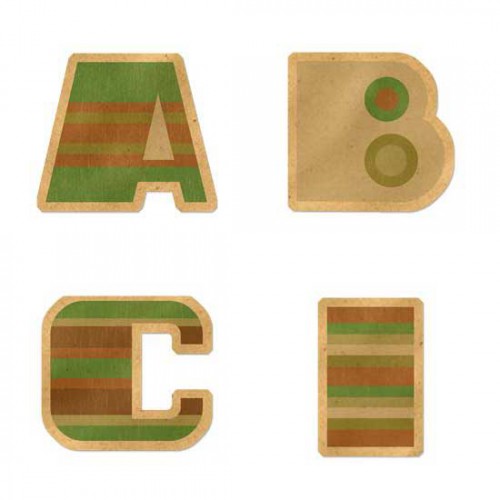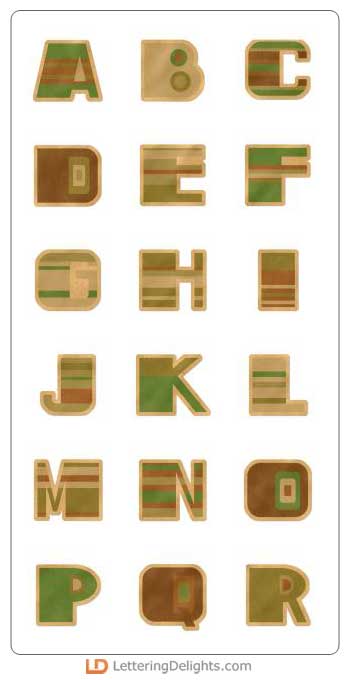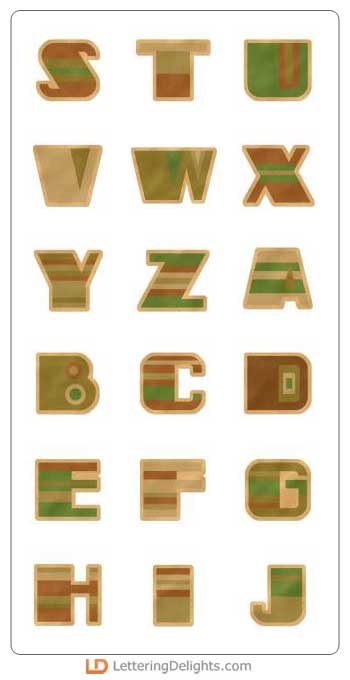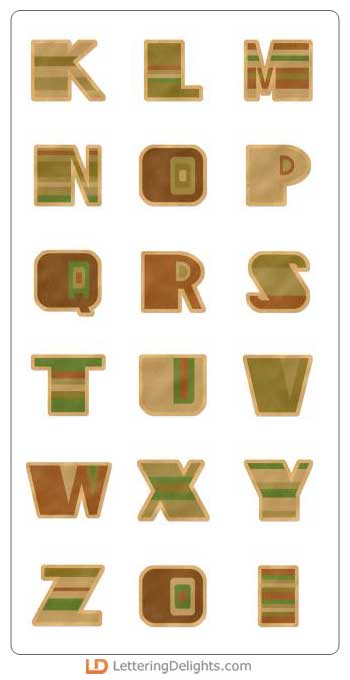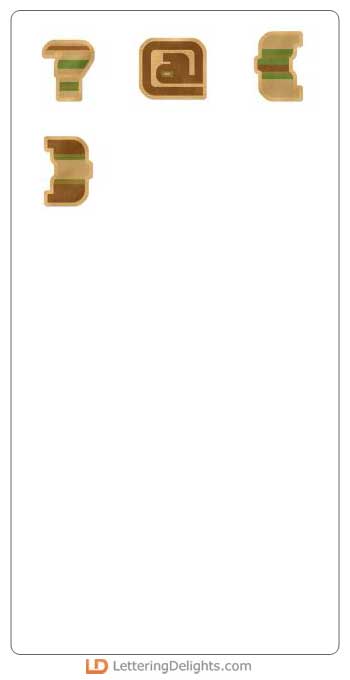
Created using the colors of the great outdoors (which just so happens to be the colors of the Scouting organization), the Scouts Alph is a perfect match for anything 'Scouting', including all the Scouts and Camping Out products included in the amazing Scouts Collection.